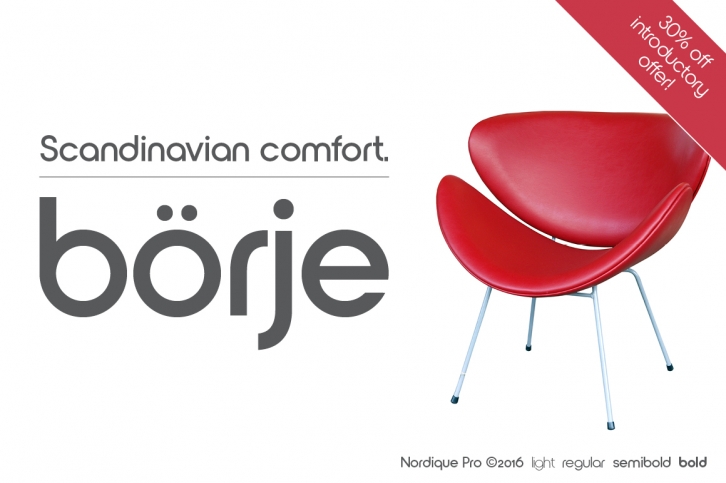
Nordique Pro Semibold is a great font that was designed by Leksen Design. Imagine the amount of combinations you can create using this font! The archive is 4.91 MB and it was released on April 27, 2016. Nordique Pro Semibold looks beautiful on wedding invitations, greeting cards, logos, posters, labels, t-shirt designs, logos, business cards and is perfect for use in ink or watercolor works, fashion, magazines, packaging and food menus, children's books and more!